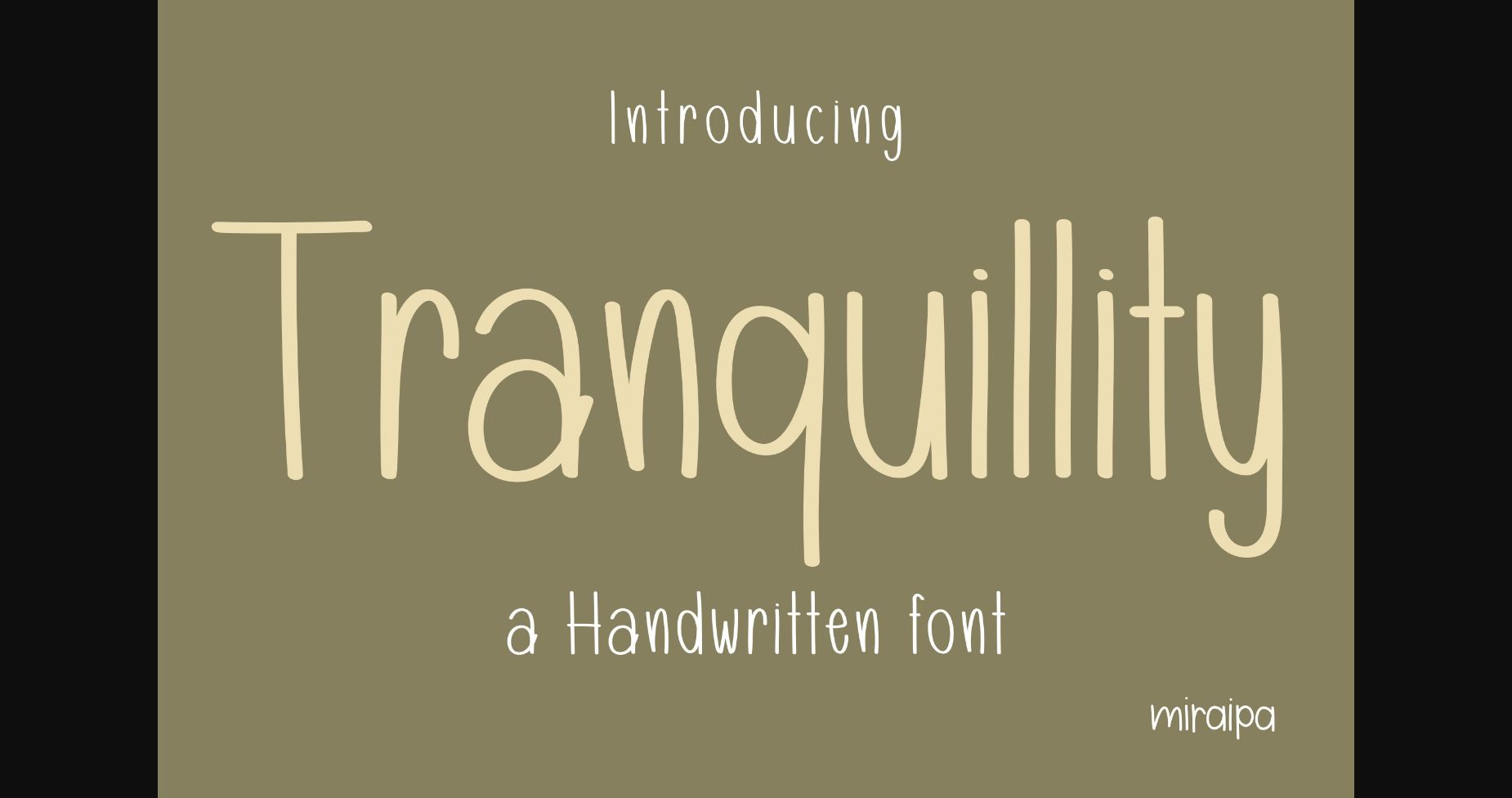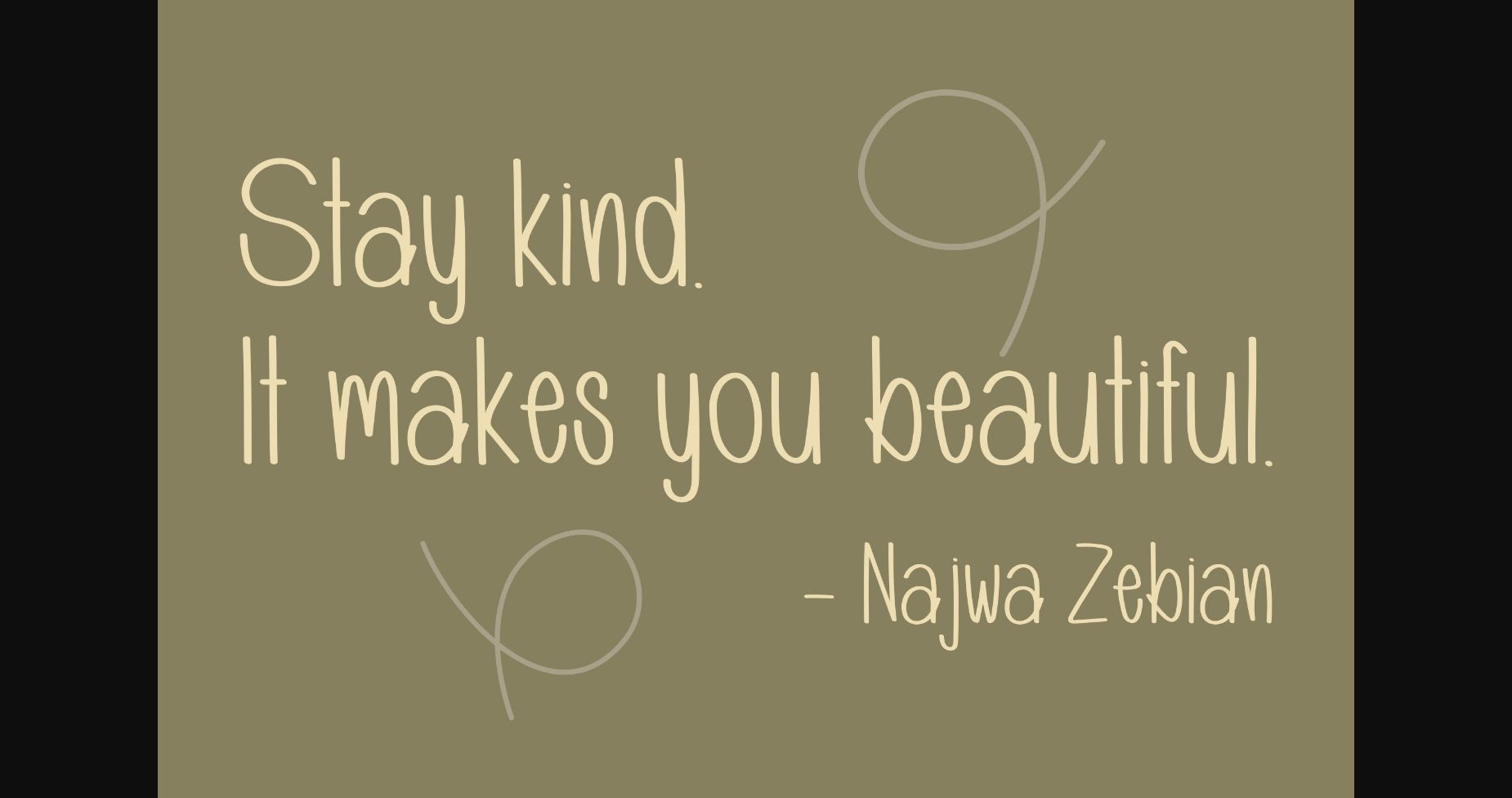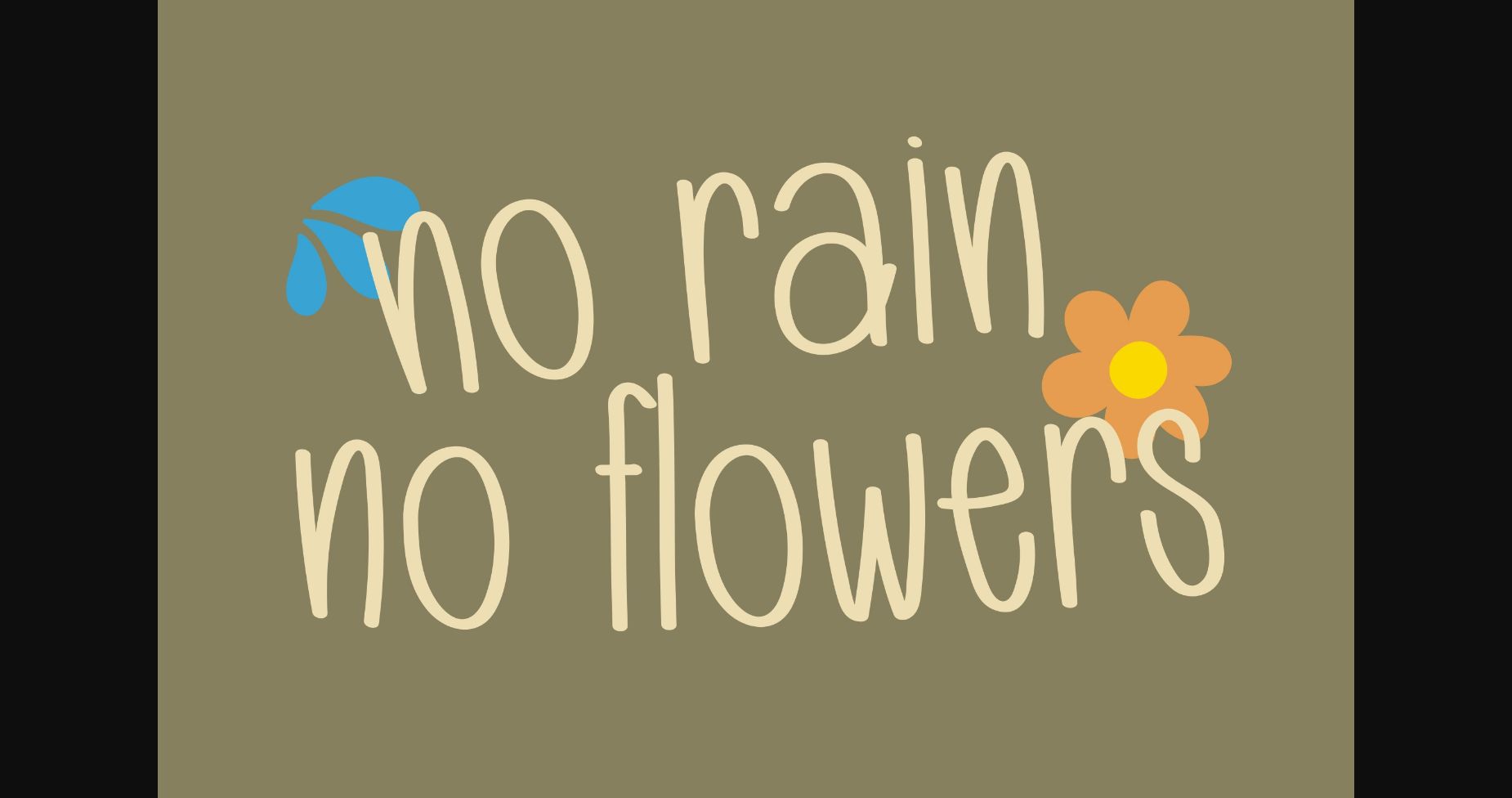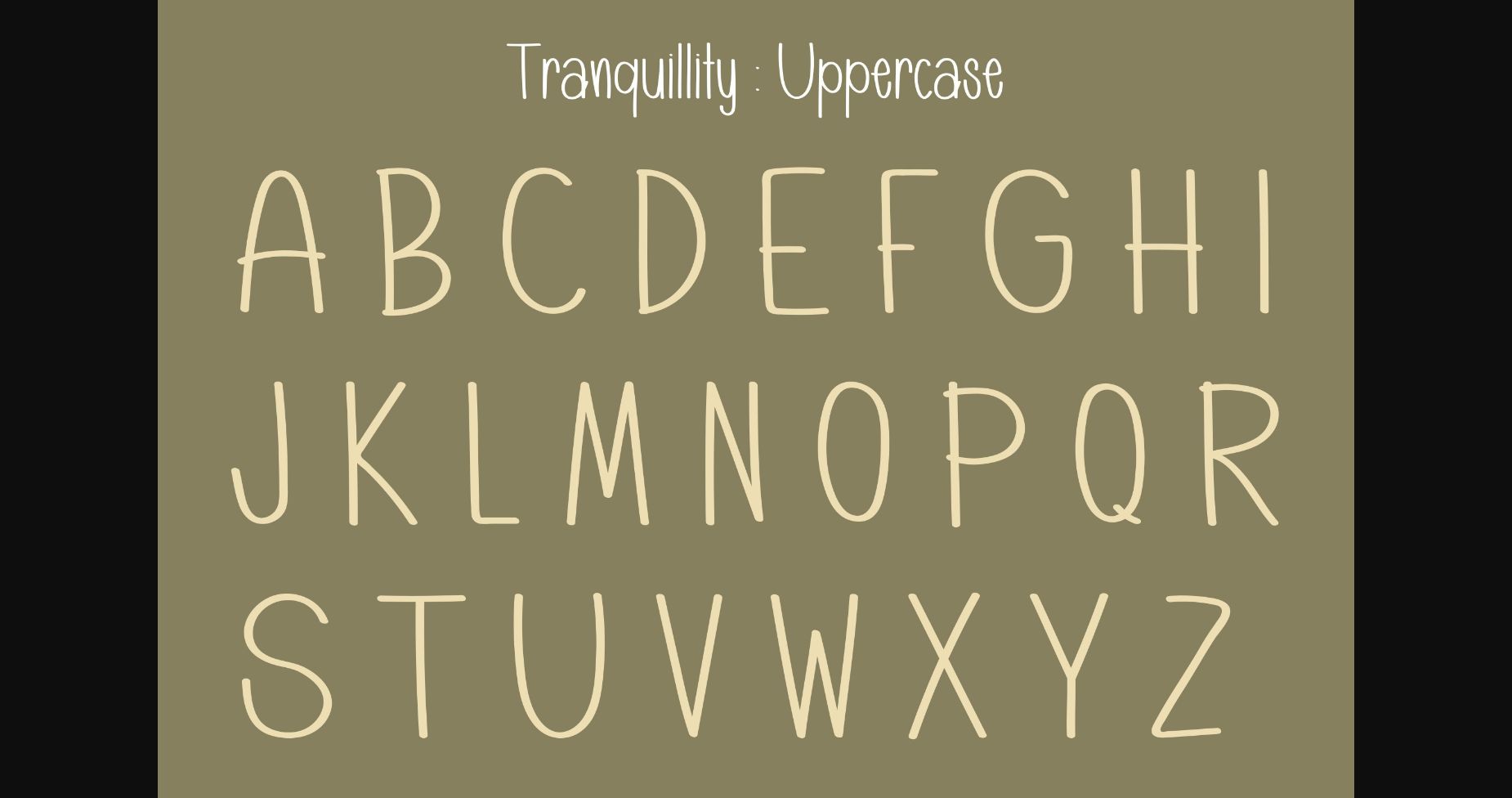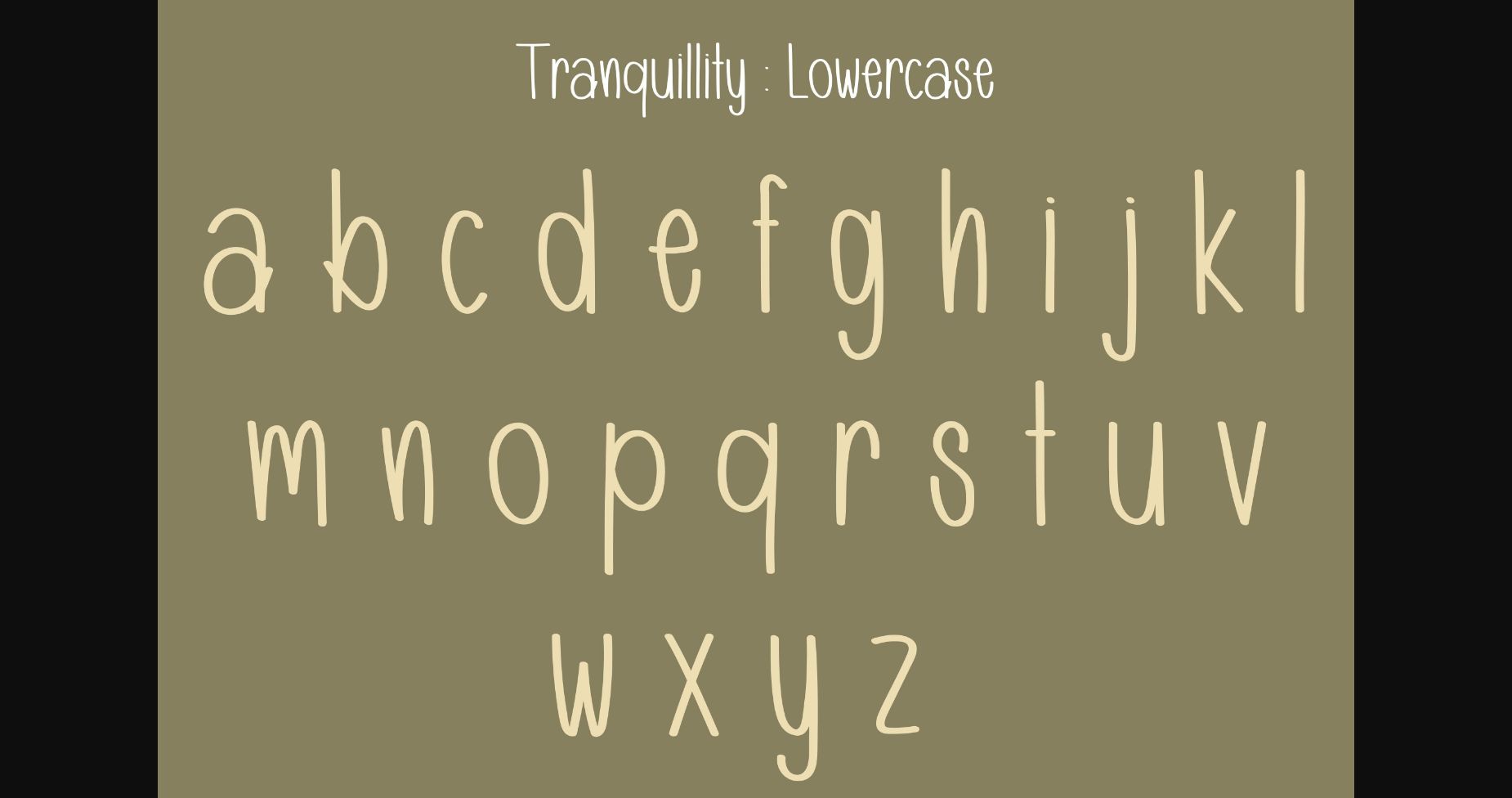
About Tranquillity Font
Tranquillity is a handwritten font designed in a friendly and lovely style. It would be awesome for your diary planners, journals, back-to-school designs, party decorations, party invitations, festival decorations, posters, blogs, clothing, children-related designs, greeting cards, social media posts, and many more. Add it now to your fonts library, and it will bring any of your DIY projects to life.